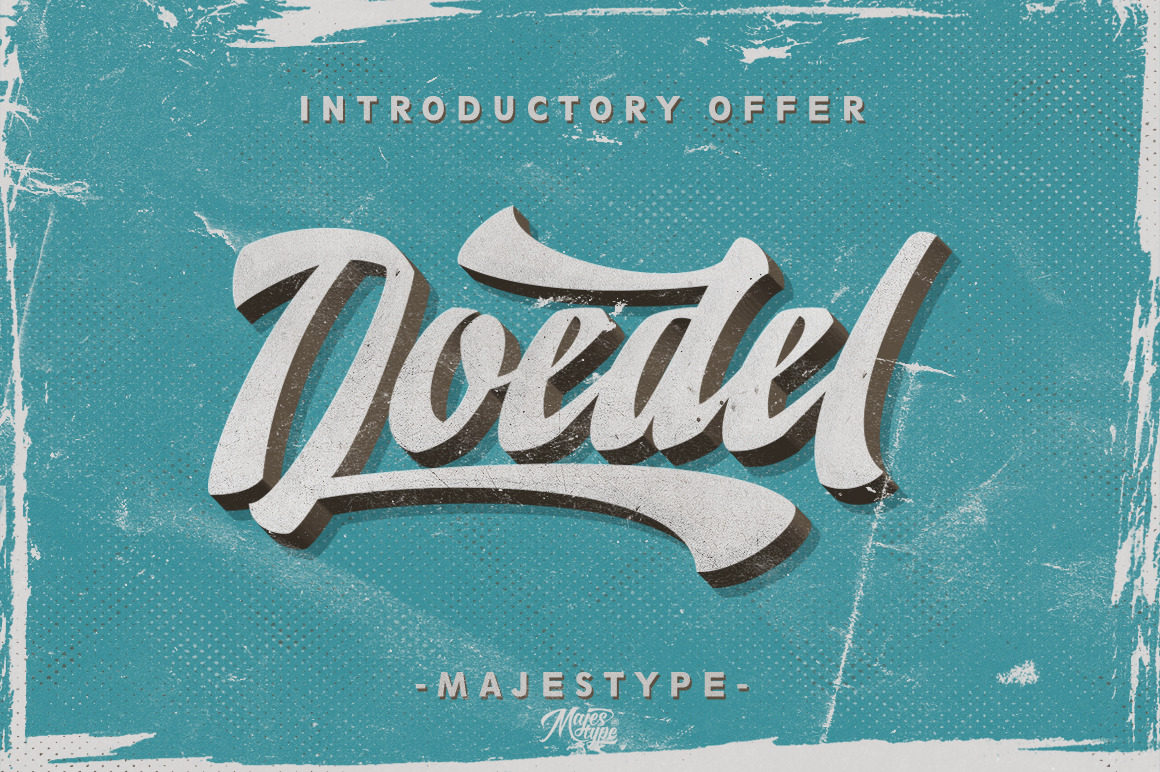
Doedel - Retro Vintage Font
Doedel is a strong script font that comes with over 800 glyphs and is equipped with a host of OpenType features, works well at large size and making it a breeze to customize the feel of your design. An ideal font for retro design, vintage design, t-shirt design, headline, website title, package or etc.